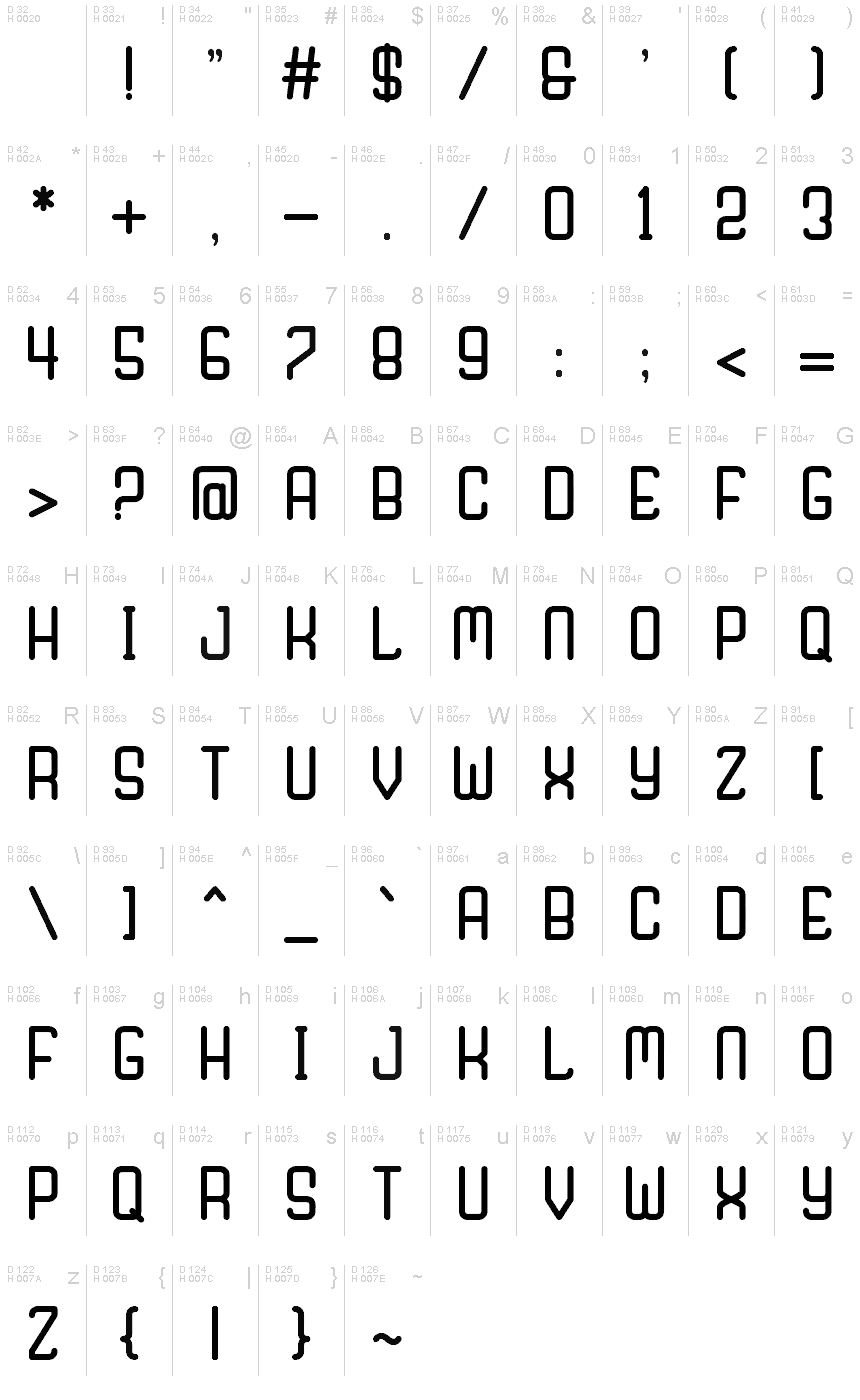
Nagaro
Nagaro is a striking, condensed font that commands attention. Its bold, angular letterforms exude a sense of strength and power, making it an ideal choice for headlines, logos, and other high-impact design elements. The font's distinctive aesthetic blends modern minimalism with a hint of industrial edge, lending it a versatile appeal that can seamlessly translate across a wide range of applications, from editorial layouts to branding initiatives.
Nagaro's compact width and clean, legible design ensure it remains equally effective in both print and digital environments, making it a valuable asset for designers seeking to create visually compelling and impactful communications.
Sibelumpagi Studio